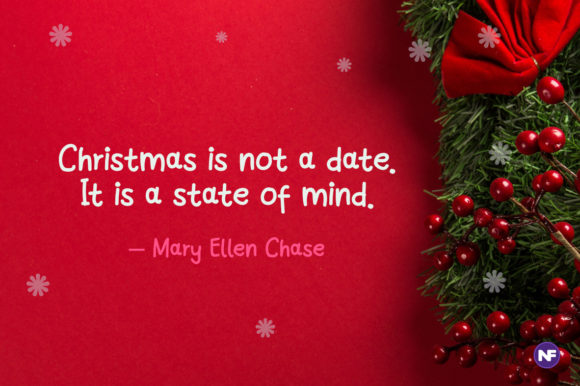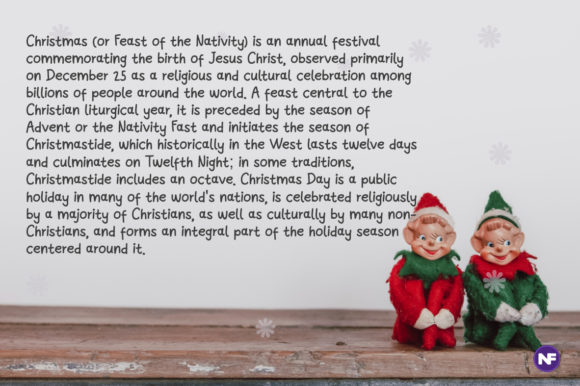
Ecstatic Christmas Font: A Cute Handwritten Font to Elevate Your Holiday Designs
Are you looking for a font that can add a touch of magic to your Christmas projects? Look no further than the Ecstatic Christmas Font! This adorable handwritten font is designed to bring cheer and joy to your designs, making it perfect for holiday-themed projects. In this article, we’ll dive into the features and benefits of the Ecstatic Christmas Font, and explore how you can use it to create stunning designs that will leave a lasting impression.
What is Ecstatic Christmas Font?
Ecstatic Christmas Font is a unique and charming handwritten font that is specifically designed for Christmas-themed projects. Its playful and whimsical style makes it perfect for creating festive and fun designs that capture the spirit of the holiday season. The font is carefully crafted to provide a warm and cozy feel, making it ideal for use in holiday cards, invitations, posters, and other design projects.
Features of Ecstatic Christmas Font
So, what makes Ecstatic Christmas Font so special? Here are some of its key features:
- Cute and playful design: The font boasts a delightful and whimsical design that is sure to bring a smile to anyone’s face.
- Handwritten style: The font has a beautiful handwritten style that gives it a personal and unique touch.
- Perfect for Christmas projects: The font is specifically designed for Christmas-themed projects, making it a great choice for holiday designs.
- Easily readable: Despite its playful design, the font is easily readable, making it perfect for use in a variety of design projects.
Benefits of Using Ecstatic Christmas Font
So, why should you choose Ecstatic Christmas Font for your holiday designs? Here are some of the benefits of using this amazing font:
- Adds a personal touch: The font’s handwritten style adds a personal touch to your designs, making them more relatable and engaging.
- Creates a festive atmosphere: The font’s playful and whimsical design helps to create a festive atmosphere, perfect for holiday-themed projects.
- Versatile: The font can be used in a variety of design projects, from holiday cards and invitations to posters and social media graphics.
- Easily customizable: The font can be easily customized to fit your design needs, making it a great choice for designers and crafters.
How to Use Ecstatic Christmas Font
Using Ecstatic Christmas Font is easy! Here are some tips to get you started:
- Pair it with other fonts: Pair Ecstatic Christmas Font with other fonts to create a unique and eye-catching design.
- Use it in holiday cards and invitations: The font is perfect for use in holiday cards and invitations, adding a personal and festive touch.
- Create festive posters and graphics: Use the font to create festive posters and graphics that capture the spirit of the holiday season.
- Experiment with colors and textures: Experiment with different colors and textures to add depth and interest to your designs.
Ecstatic Christmas Font is a cute and charming handwritten font that is perfect for adding a touch of magic to your holiday designs. With its playful and whimsical style, this font is sure to bring cheer and joy to your projects. Whether you’re a designer or crafter, Ecstatic Christmas Font is a great choice for any holiday-themed project. So why wait? Download Ecstatic Christmas Font today and start creating stunning designs that will leave a lasting impression!